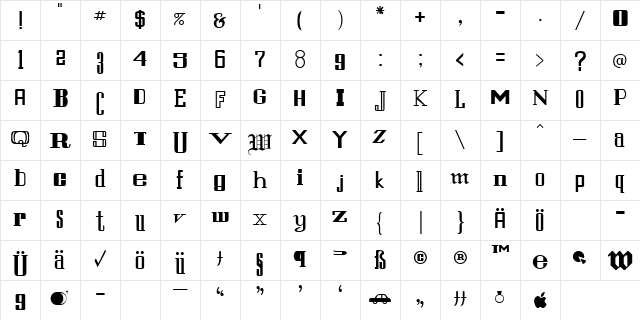
StFrancis.fog fog
Design Context for StFrancis.fog
StFrancis.fog is a composed and adaptable typeface that performs quietly and consistently across a wide range of design contexts.
Pro Tip: Use StFrancis.fog in both headline and body roles to test its range before committing to a single application.